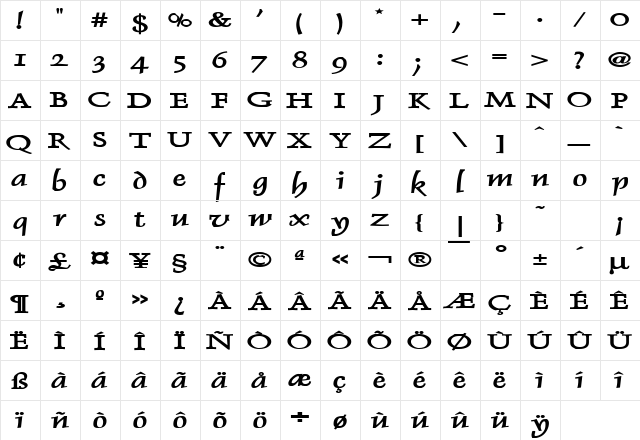
Dolphin Extended Bold
Design Context for Dolphin Extended Typeface
Dolphin Extended is a composed and adaptable typeface that performs quietly and consistently across a wide range of design contexts. The heavy weight commands attention and anchors typographic hierarchies.